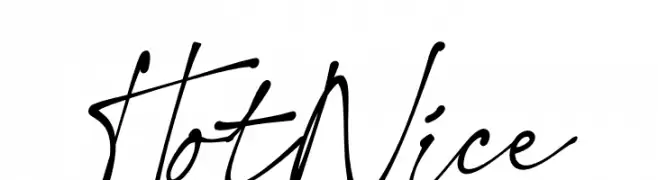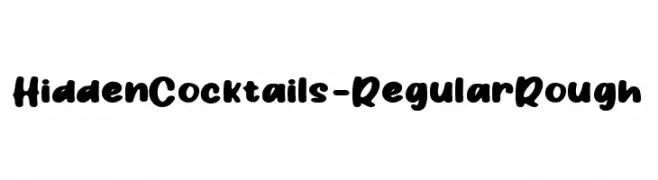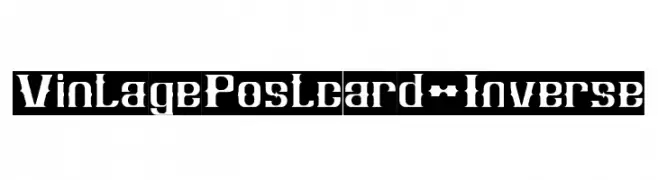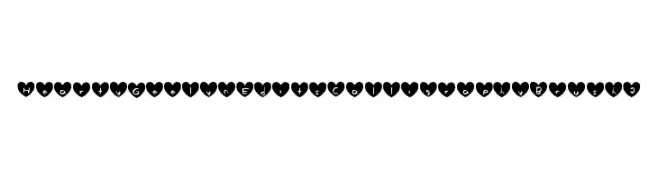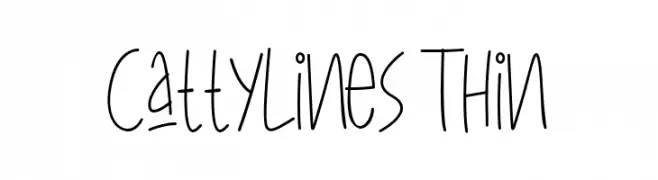
A lively, expressive handwritten font with fluid, connected strokes.
A playful, bold, and rough hand-drawn font with a bubbly aesthetic.
An elegant, flowing script font with interconnected, cursive letters.
A bold, decorative font with vintage flair and high contrast strokes.
A classic, elegant script font with flowing, cursive letterforms.
A decorative font with characters enclosed in heart shapes, offering a playful and romantic style.
A playful, handwritten font with a casual and friendly vibe.
A bold, condensed italic font with a futuristic and sporty design.
A bold, decorative font with star-shaped cutouts for a playful and eye-catching look.
A playful, thin font with whimsical cat silhouettes and a modern, airy style.